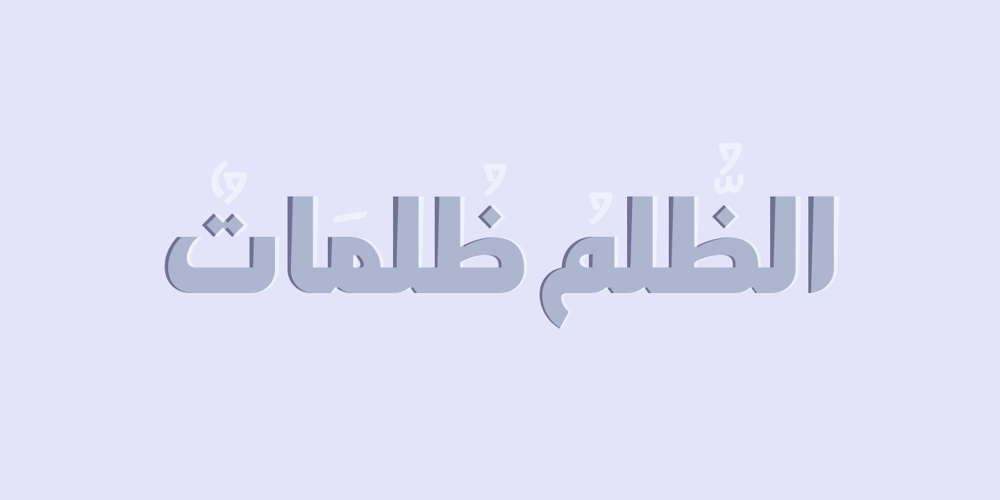
Abdo Rajab Font Family was designed by Abdulsamie Rajab Salem and published by Abdo Fonts. Abdo Rajab contains 3 styles and family package options. Abdo Rajab is the second version of the font FS Rajab which was designed by the type designer Abdulsamiea Rajab Salem for Future Soft company fonts. It is a leading company in Arabization field and producing the Arabic and Islamic programs beside the children programs. This font appeared between 1998 and 2000. In this version there were a lot of adjustments to keep the font in its spirit and uniformity between the various characters. Also added some new characters, which gave him another beautiful addition to be used in both title and text designs. Three weights (Regular, light and bold) have been created. Then the font was converted to OpenType to support Arabic, Persian and Urdu to be compatible with the various operation systems and modern software. The combination of modern Kufi and Naskh styles and varying between straight and curved parts made it a beautiful typeface appropriate to the titles and text, and able to meet the desire of the user in the design of ads and modern designs of various types of audio and visual.